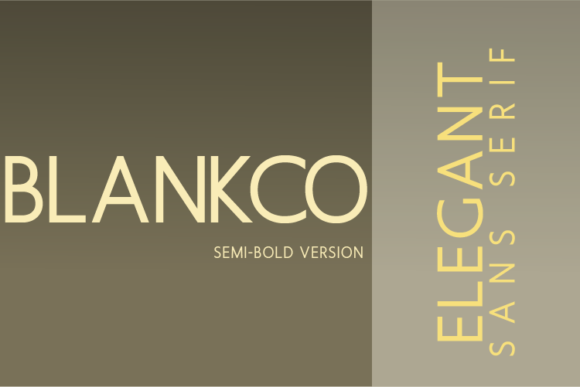
Blankco Semi-Bold Font
Introduce your individuality to the world with Blankco Semi-Bold, the font that radiates confidence and style. An ode to the iconic Futura and Avant Garde typefaces, Blankco is young, geometric, and sans serif with a distinct x-height value, geometrical letterforms, and sharp edges. Inspired by the 20th Century neo-grotesk fonts, Blankco is a captivating blend of classic and modern that demands attention.
Experience the charisma of Blankco in your magazines, posters, branding, websites, and beyond. Its versatility is unparalleled, allowing you to unleash your creative spirit across a multitude of platforms. Blankco is not just a font; it's a fashion statement, a revolution in typography that echoes your unique personality.
With Blankco Semi-Bold, you don't just communicate; you make a statement. Its sharp edges and small stroke contrast create an unforgettable visual impact, leaving a lasting impression on your audience. Whether you're a designer, a creative professional, or simply someone who appreciates the art of typography, Blankco is your perfect match.
Embrace the allure of Blankco Semi-Bold and transform your designs into captivating masterpieces. Let your words dance with a newfound boldness, and watch as your creative vision comes to life. Dare to be different; dare to stand out. Choose Blankco Semi-Bold, and let your typography shine brighter than ever before.